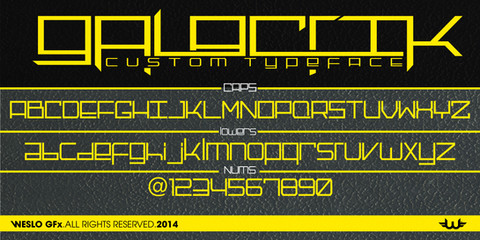
Answer Type is created by Wesley Pastrana inspiration from different sources based on me errors and particular source from there and I was cutting and pasting to make this font a bit futuristic.___